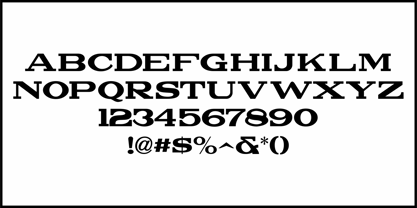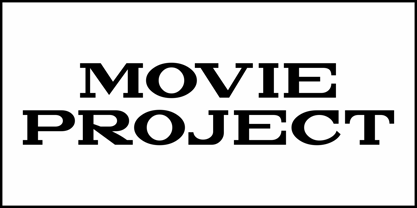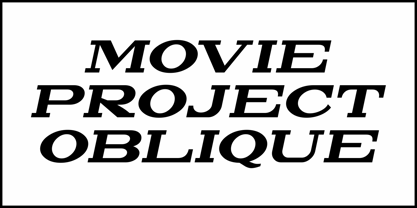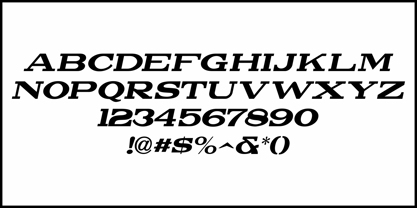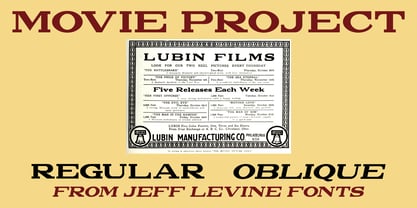
Movie Project JNL
by Jeff Levine
Typography from various ad headlines found within the pages of 1913 editions of Motion Picture News inspired Movie Project JNL, which is available in both regular and oblique versions.
This wide slab serif design has a bold and structural look, but also carries trace nuances of the Art Nouveau period.